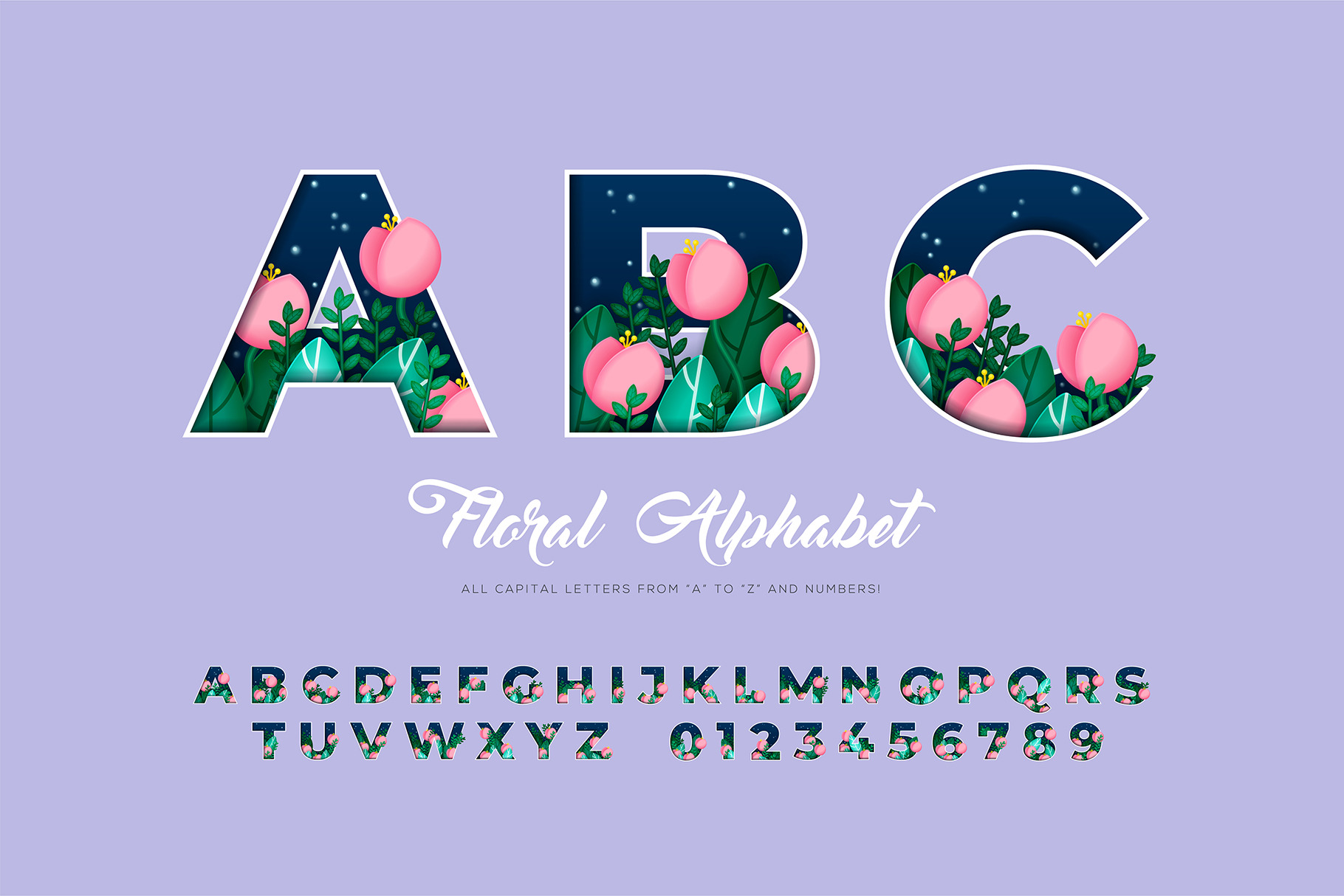
Floral Alphabet Font Vector
Floral Alphabet Font. Decorative Vector Letters and Numbers with Night Flowers and Leaves for Wedding, Greeting Cards and Creative Design - EPS (Not a Font!)
- Uppercase letters A - Z
- Numbers 0 - 9
- Clean, modern, and unique alphabet design